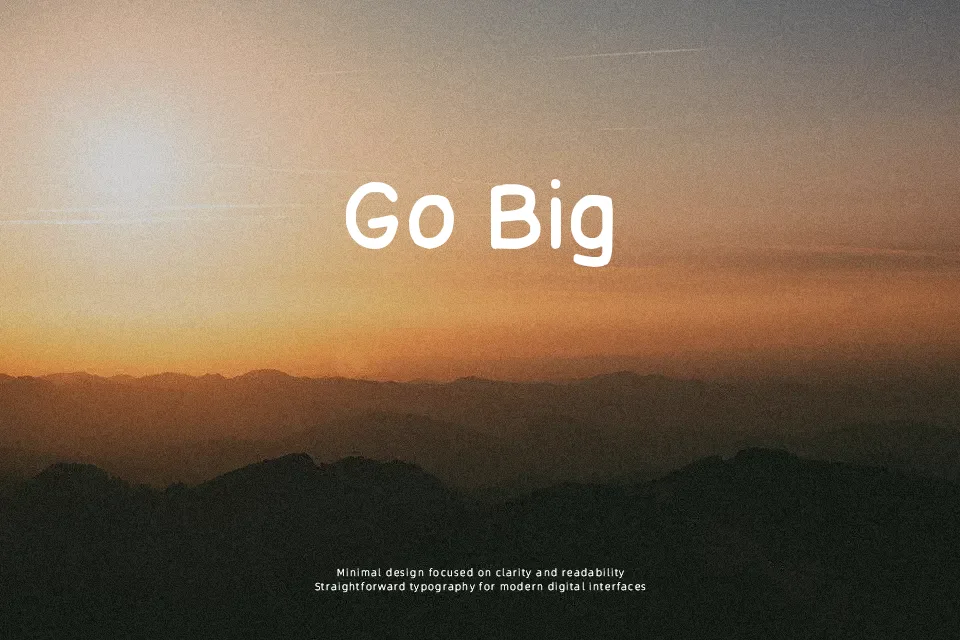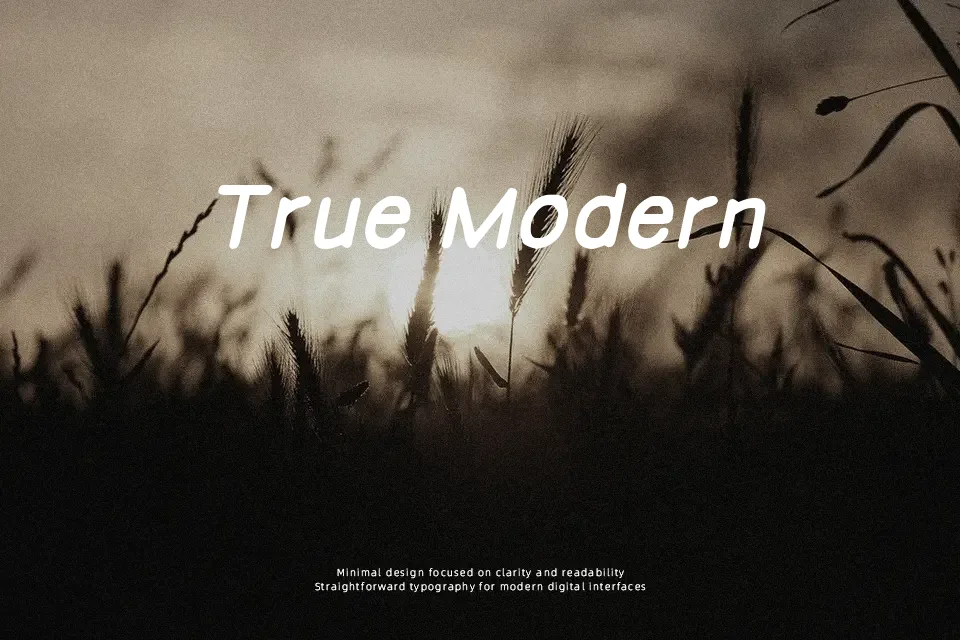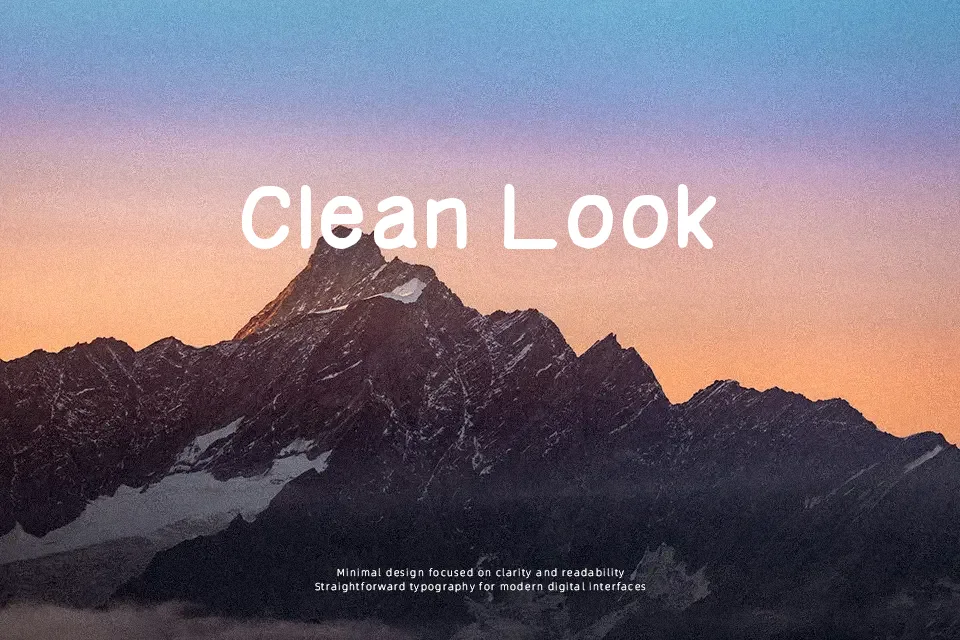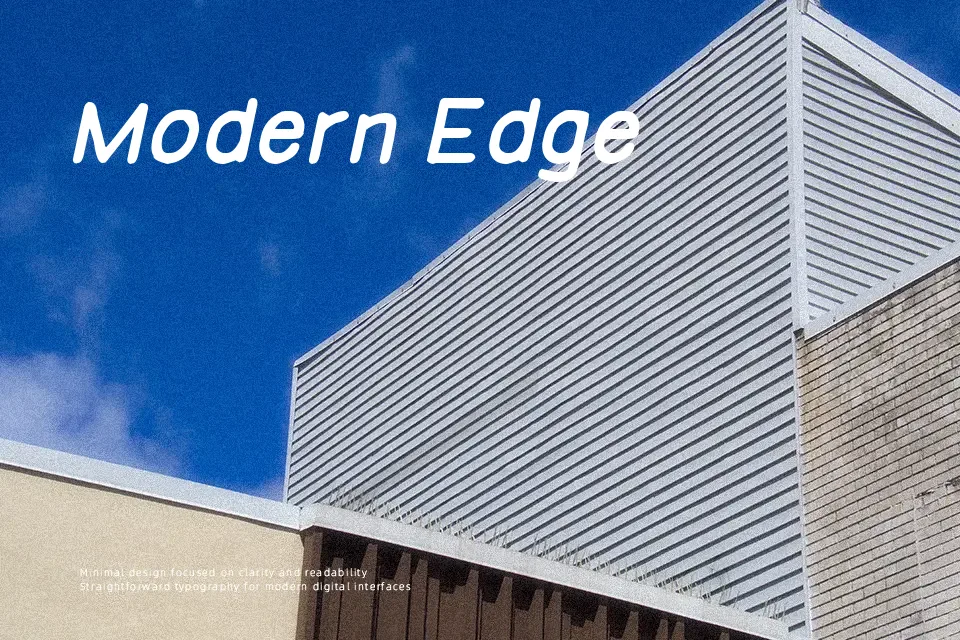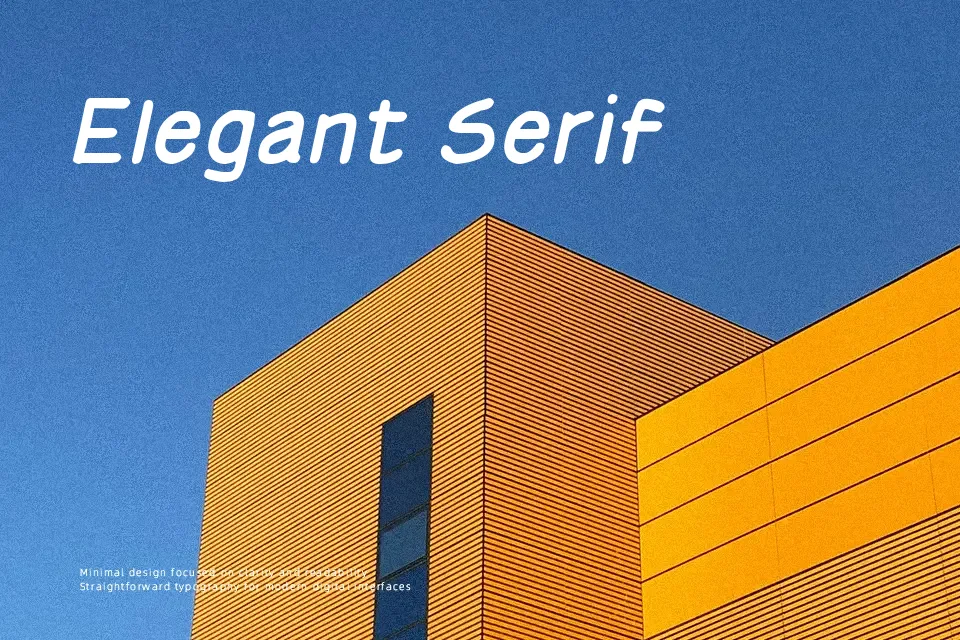
Basic Comical NC Font
Designed by Jayvee Enaguas
Basic Comical NC leans into a loose, hand-drawn comic look, with soft curves, slightly uneven strokes, and open counters that keep the letters readable at medium sizes. The overall impression is casual and friendly rather than polished, so it supports lighthearted messaging, children’s materials, and humorous captions more than serious branding. It works well for short headlines, word balloons, and labels where you want a relaxed tone and quick legibility. The limitation is that its informal style can look out of place in professional reports or long paragraphs, where the irregular rhythm becomes tiring. Use it when you need a playful accent, but switch to a cleaner sans serif for body copy or formal communication.
kids’ worksheet titles
comic-style speech bubbles
humorous social media posts
luxury or high-end branding
small UI labels and menus